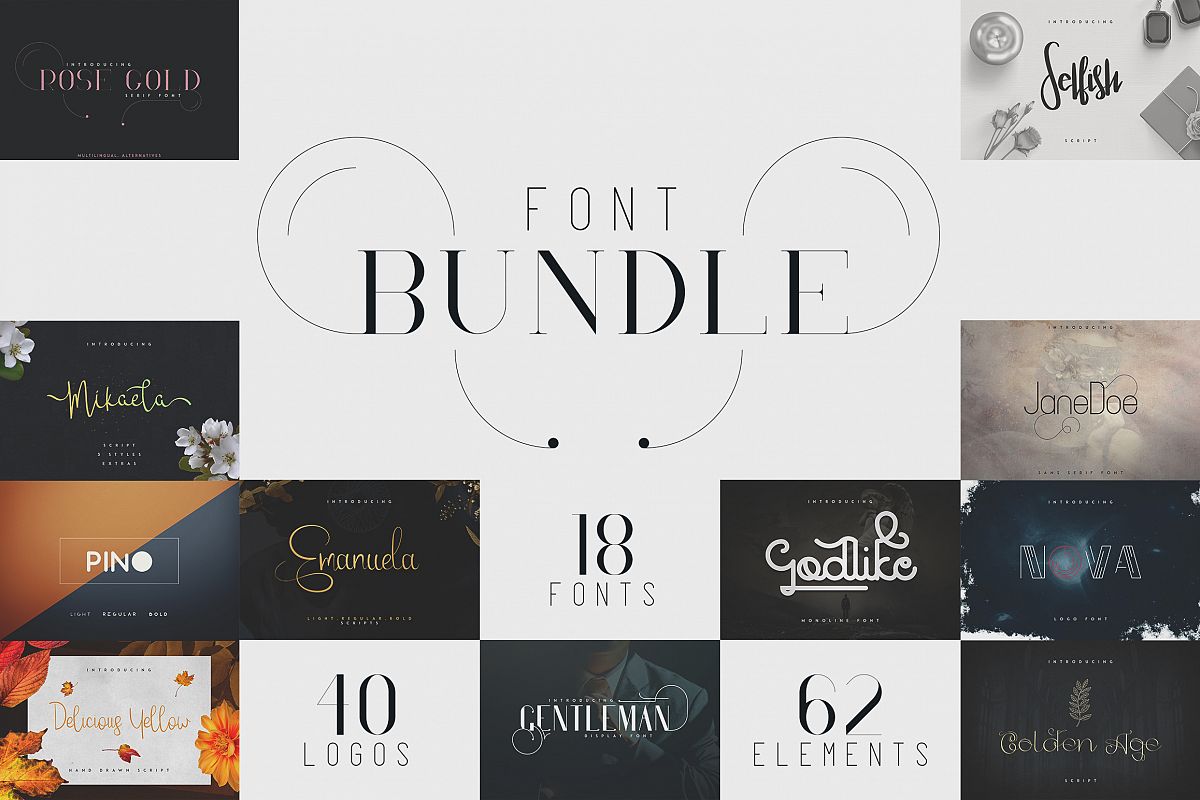
18 Fonts Bundle + 40 Logo templates and 62 Elements
Introducing you my 1st Font Collection with different font types, elements and premade logo template. perfect for branding projects, home-ware designs, product packaging, wedding invitations, magazine headers - or simply as a stylish text overlay to any background image.
In this collection you will find :
• 40 Logo templates
• 62 Elements
• Rose Gold font
• JaneDoe font
• Gentleman font
• Pino font
• Emanuela font
• Delicious Yellow font
• Mikaela font
• Selfish font
• Golden Age font
• Nova font
• Godlike font